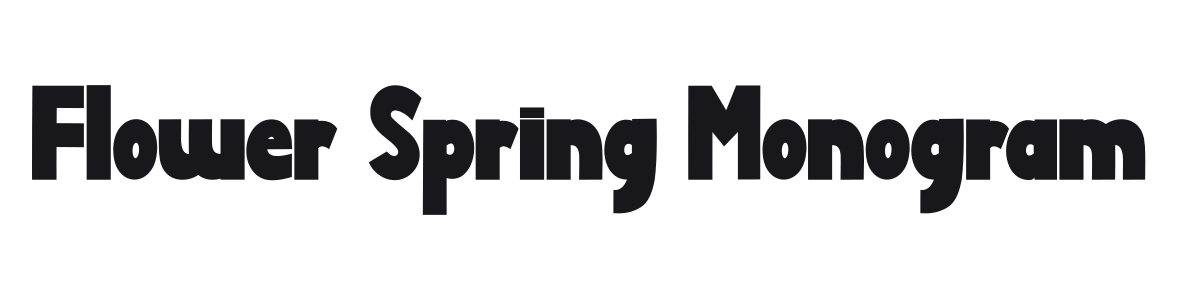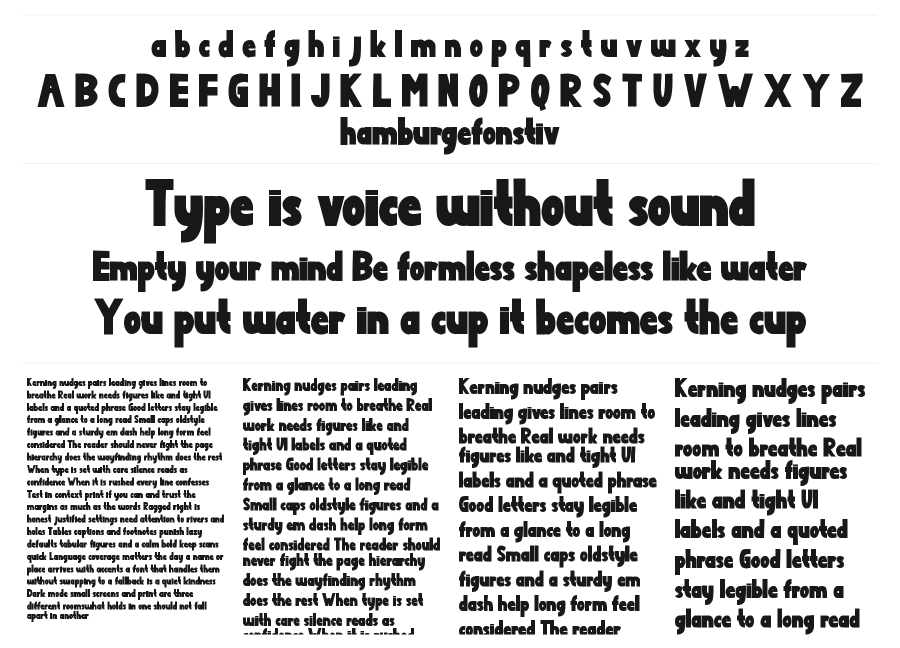
Flower Spring Monogram
Flower Spring Monogram is an ultra-heavy condensed sans with a pronounced 1970s groovy character. The extreme weight squeezes counters into rounded bubbles, giving every character a bold, energetic presence that commands attention at large sizes. It brings retro warmth to posters, album art, and brand identities that want personality over neutrality.